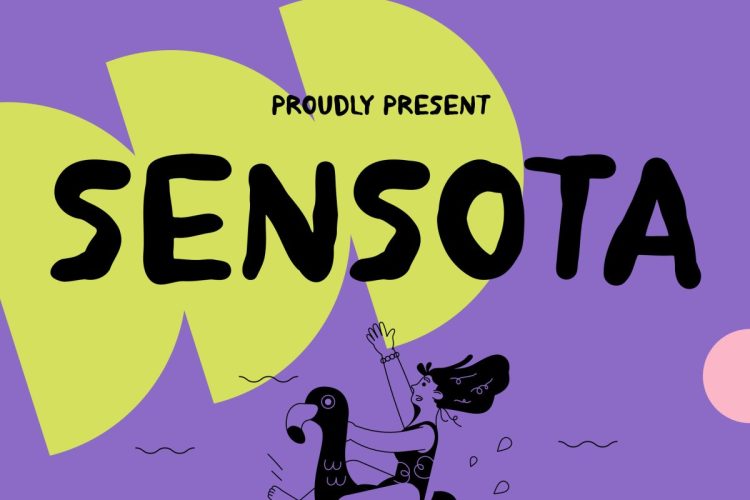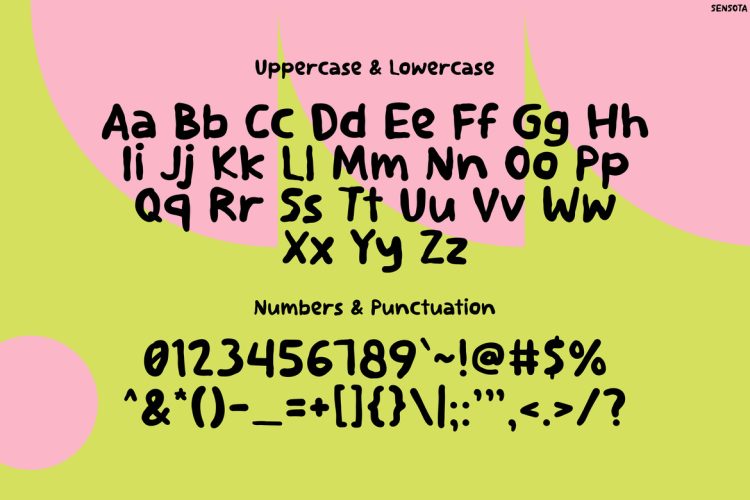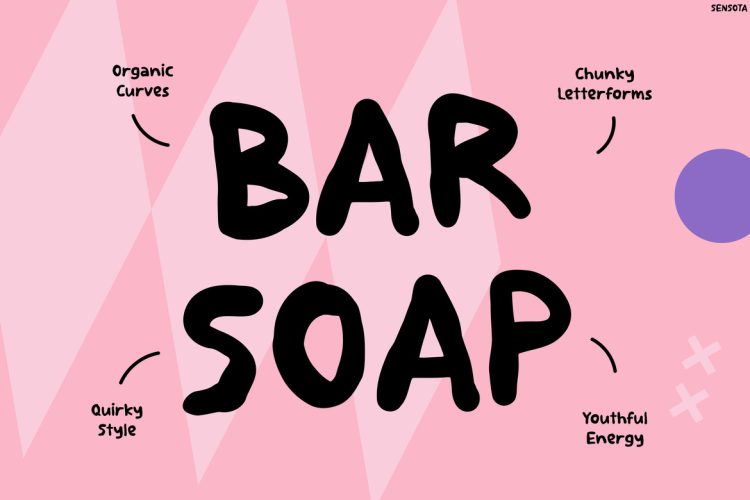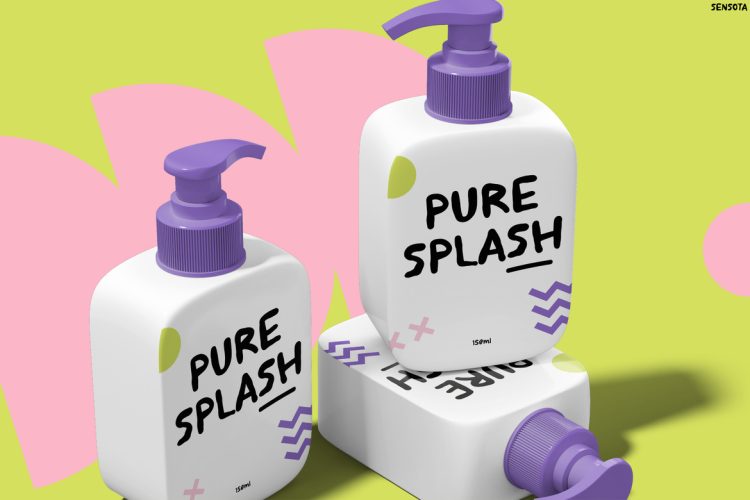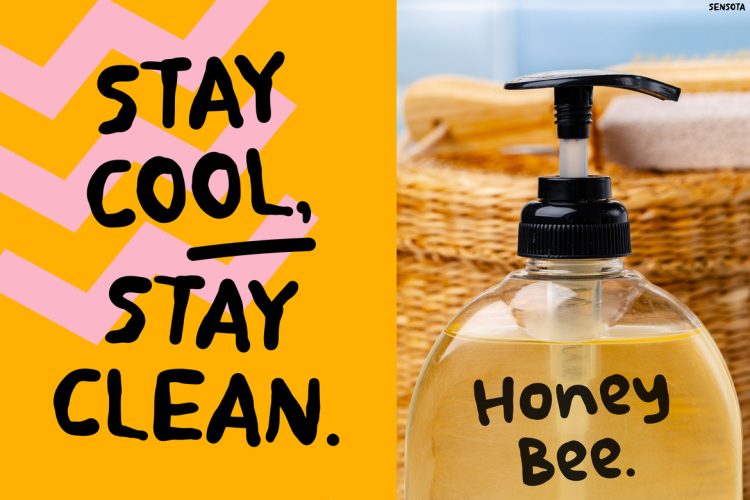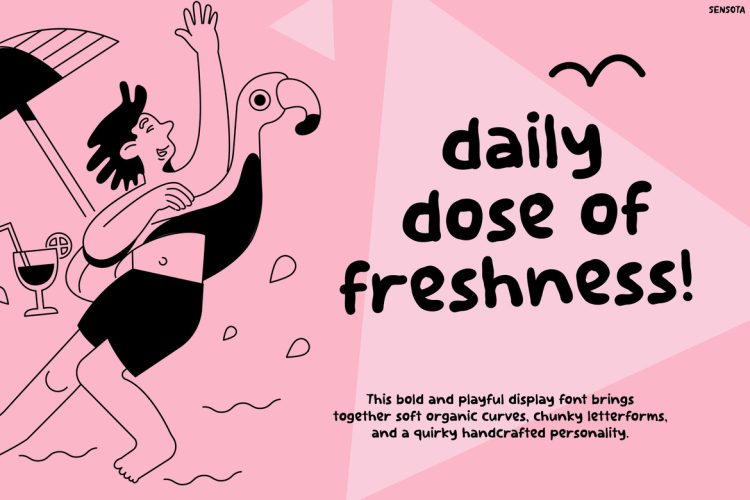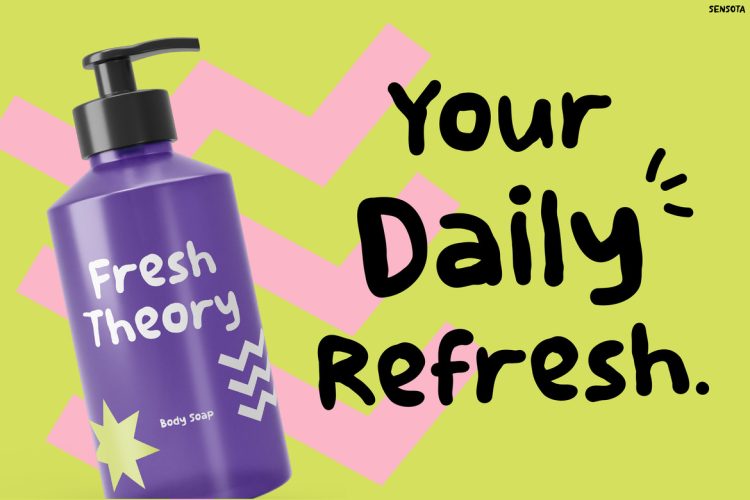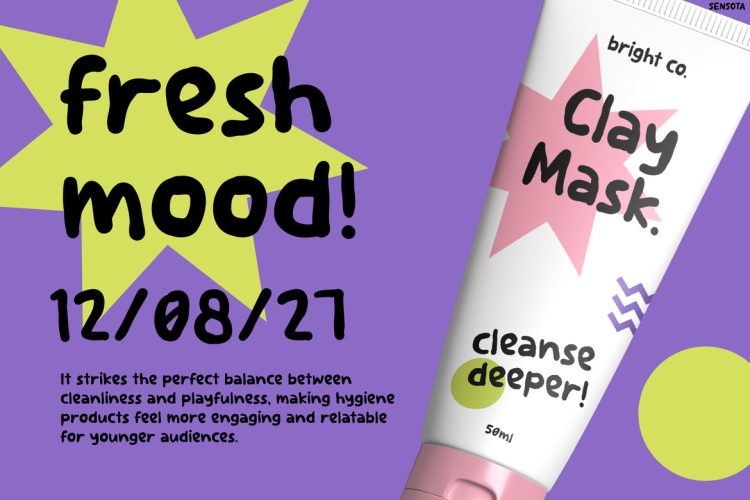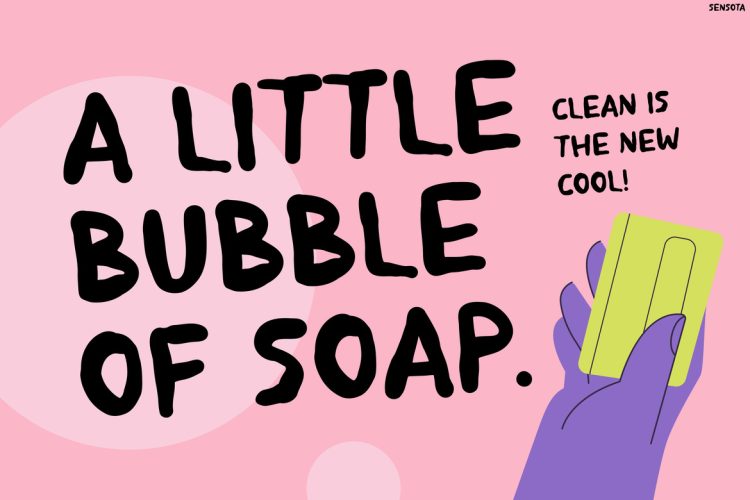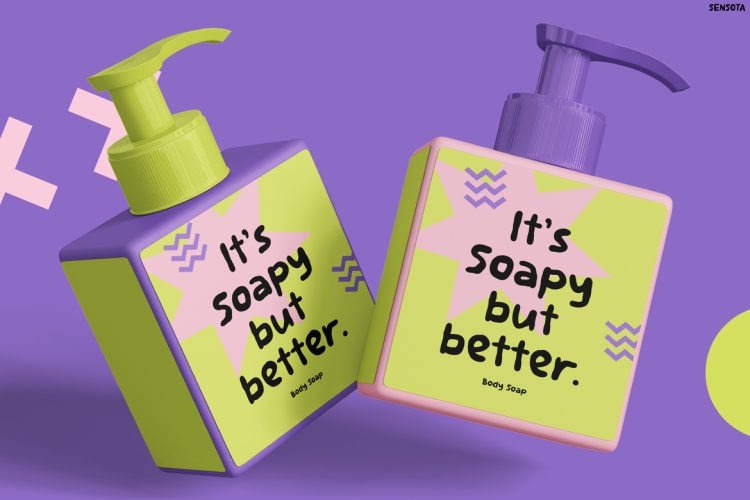
Instagram Font Sensota โ Playful Instagram Font That Pops
Instagram Font Sensota brings a fun, bold, and carefree personality to every design. Its hand-drawn letterforms create an authentic and playful look that instantly grabs attention. Moreover, the font combines casual charm with strong readability, making it perfect for modern social media content. As a result, your text feels friendly, energetic, and full of character. In addition, its organic shapes add a creative touch that helps brands stand out in crowded digital spaces.
Instagram Font Sensota is designed for creators who want eye-catching typography with a relaxed and trendy vibe. For example, it works beautifully on Instagram posts, product packaging, branding, posters, and promotional graphics. Furthermore, its playful strokes create a handmade feel that looks fresh and approachable. At the same time, the font remains clear and easy to read, even in bold headlines. Therefore, it helps communicate messages with both personality and impact.
Sensota Perfect For
This font is ideal for content creators, small business owners, and social media marketers. Additionally, it suits beauty brands, skincare products, handmade goods, and lifestyle businesses. Likewise, graphic designers can use it for packaging, advertisements, and creative campaigns. On top of that, it works perfectly for brands targeting younger and trend-conscious audiences.